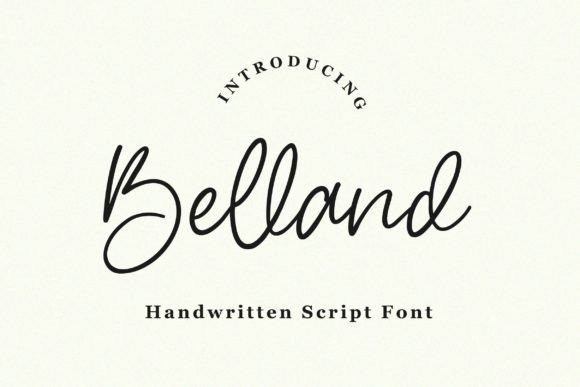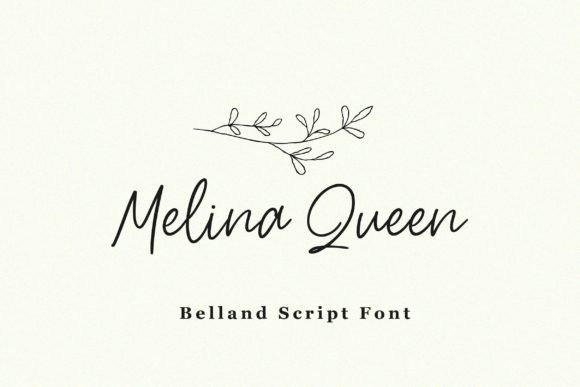
Belland Font
This font would be perfect for photography, watermarks, social media posts, advertisements, logos & branding, invitations, product design, labels, stationery, wedding designs, product packaging, special events, and other projects.